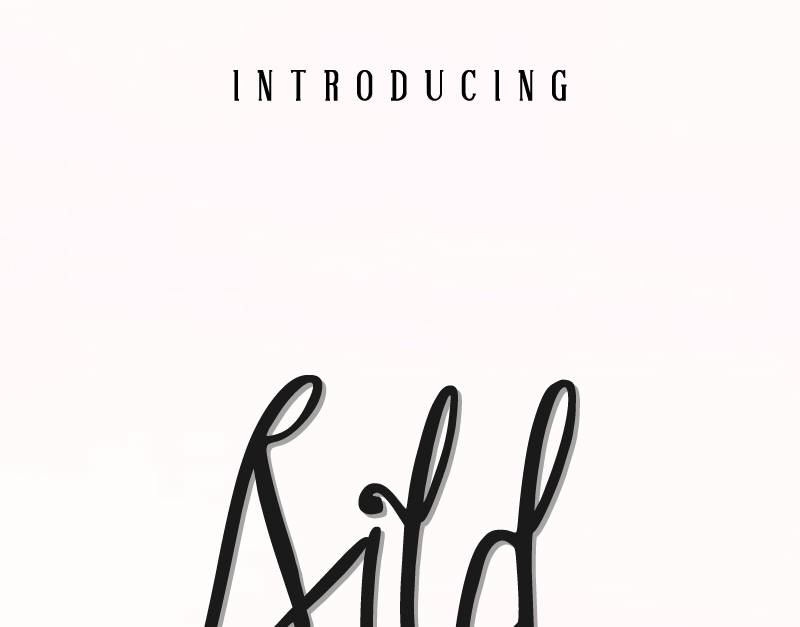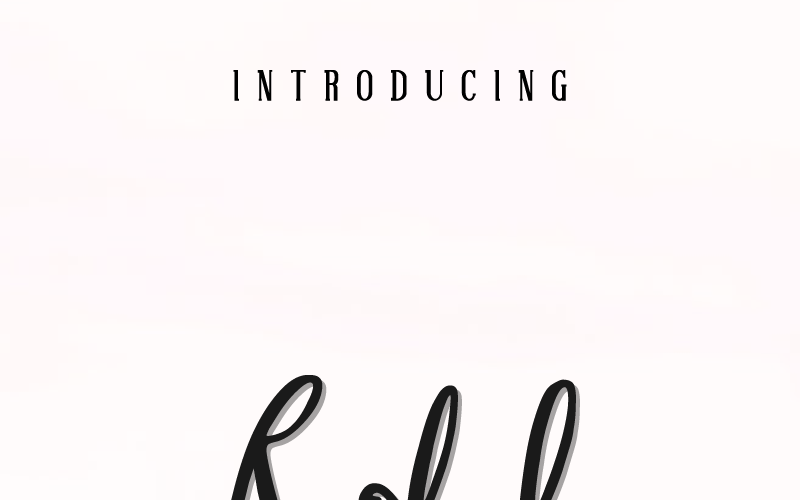
Sild Beauty Font
Sild Beauty Font: Modern Handwriting Feminism Signature
Hi Everyone! Introducing our third font : SILD ! This is a new modern script handwriting feminime signature style font. It has a fresh, elegant, natural and stylish glyphs. Will be perfer for any handwritten needed project.
Sild is a sophisticated styling font which will be perfect for branding, logo, photography and signature. It is so elegant, classy, strong and beautiful.